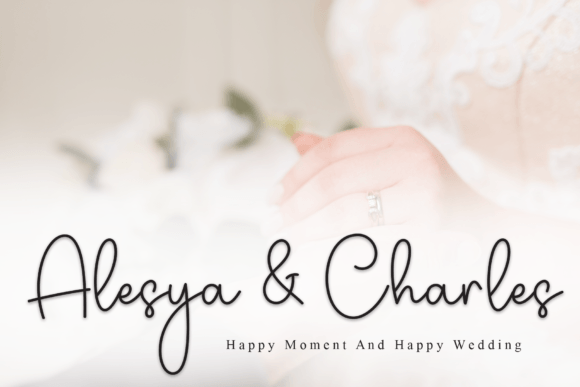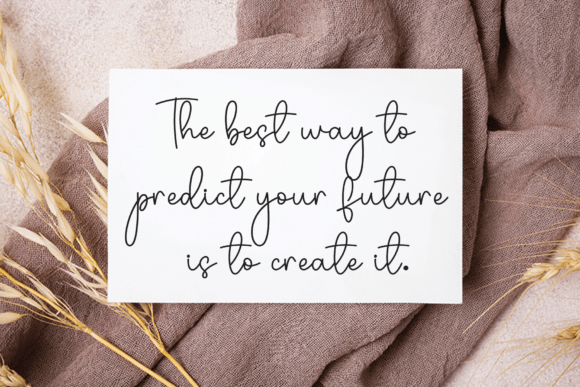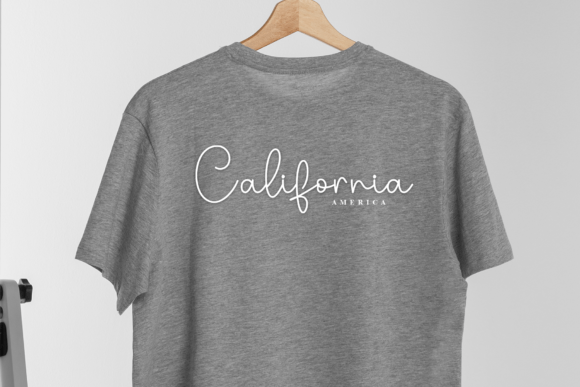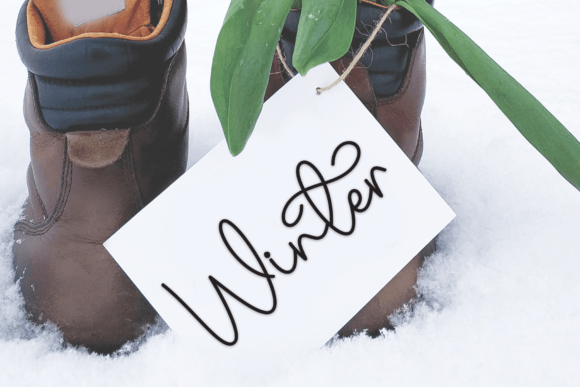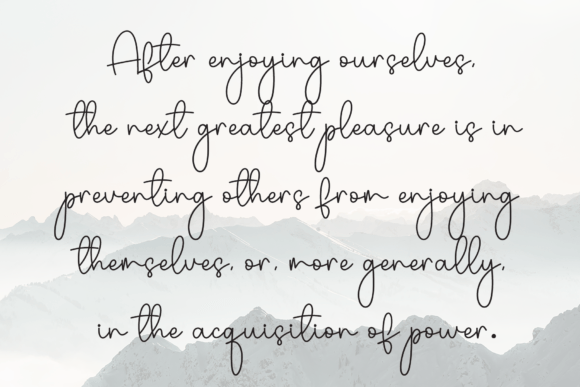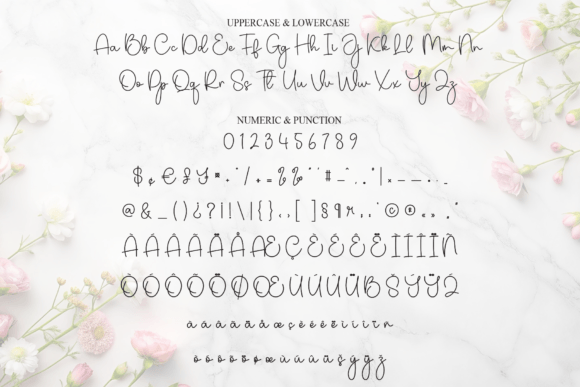
Cristian Font: Adding a Personal Touch to Your Designs
In the world of typography, fonts play a crucial role in conveying the tone and personality of a message. For designers and crafters looking to add a human touch to their projects, Cristian Font is an excellent choice. This friendly handwriting font is designed to look natural and casual, making it perfect for a wide range of applications.
The Characteristics of Cristian Font
Cristian Font is a handwriting font that exudes warmth and approachability. Its natural and casual appearance makes it easy to read, even at small sizes. The font’s unique characteristics include:
- Natural and casual appearance: Cristian Font has a relaxed, handwritten feel that makes it perfect for informal projects.
- Easy to read: The font’s clear and legible design ensures that your text is easy to read, even for those with visual impairments.
- Personal touch: Cristian Font adds a human touch to your text, making it feel warm and inviting.
Uses for Cristian Font
Cristian Font is a versatile font that can be used in a variety of projects, including:
- Notes and journals: Add a personal touch to your notes and journals with Cristian Font.
- Invitations and greeting cards: Make your invitations and greeting cards feel more special with this charming font.
- Signage and displays: Use Cristian Font to create eye-catching signage and displays that are sure to grab attention.
- Digital and print media: Cristian Font is perfect for use in digital and print media, including blogs, social media, and marketing materials.
Cristian Font offers a range of benefits for designers and crafters, including:
- Unique and creative designs: Cristian Font allows designers and crafters to create unique and creative designs that stand out from the crowd.
- Time-saving: With Cristian Font, designers and crafters can quickly and easily add a personal touch to their projects, saving time and effort.
Tips for Using Cristian Font
To get the most out of Cristian Font, follow these tips:
- Use it sparingly: Cristian Font is best used sparingly to add emphasis or create a personal touch.
- Pair it with other fonts: Experiment with pairing Cristian Font with other fonts to create a unique and visually appealing design.
- Adjust the size and color: Adjust the size and color of Cristian Font to suit your project’s needs and create a cohesive look.
Cristian Font is a friendly handwriting font that adds a personal touch to any project. Its natural and casual appearance makes it perfect for a wide range of applications, from notes and invitations to signage and displays. With its ease of use, versatility, and unique characteristics, Cristian Font is an excellent choice for designers and crafters looking to add a human touch to their designs.